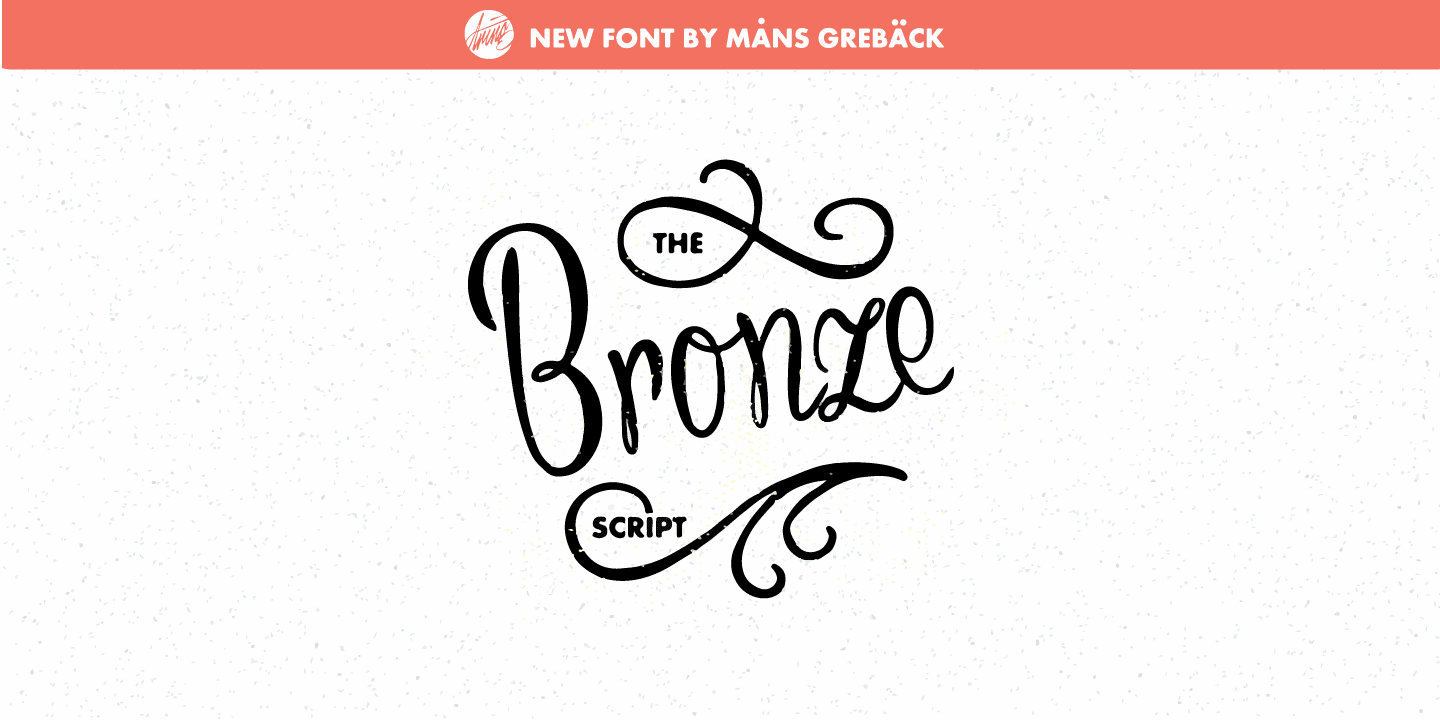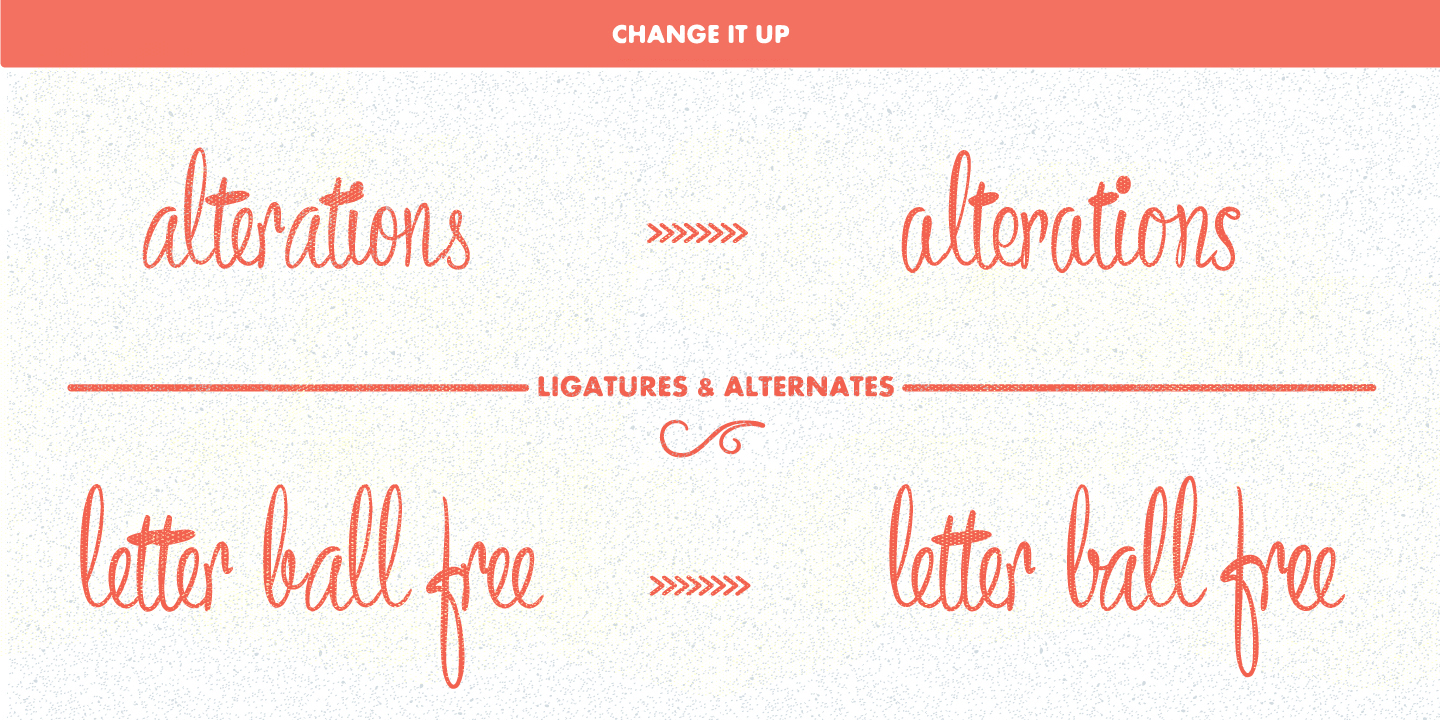
Bronze Script
Let Bronze Script take you back to the golden age of vintage when hand drawn scripts appeared in every form of publication. You can rest assured that Bronze Script will give you that tailor made flare only a nostalgic font can offer.